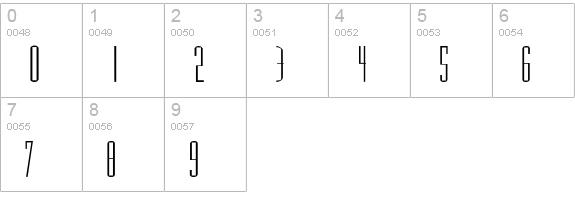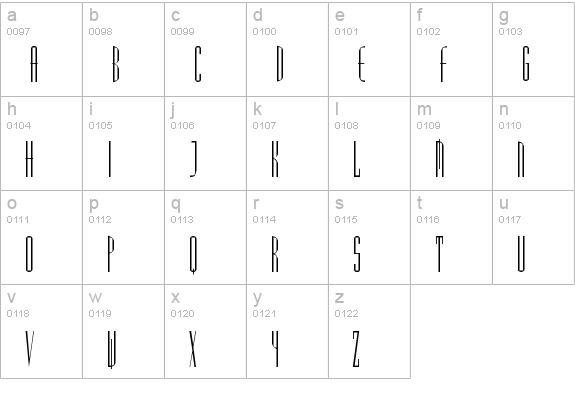
Madrid Font Details
Introducing Madrid font, a stunning typeface that effortlessly captures the vibrant spirit and timeless elegance of the Spanish capital. This font is a perfect blend of tradition and modernity, making it an ideal choice for a wide range of design projects. Madrid font features clean and balanced letterforms, with a harmonious mix of sharp angles and graceful curves. Its versatility shines through in both display and body text, offering a plethora of creative possibilities. Whether used in a headline, logo, or editorial piece, Madrid font adds a touch of sophistication and personality to any design. But what sets Madrid font apart is not just its exquisite design, but also its availability. Unlike many other premium fonts, Madrid font is free! That's right, you can freely download this extraordinary font at FontsMarket.com. This accessibility makes it a valuable asset for designers and creatives who seek high-quality typefaces without breaking the bank. The beauty of Madrid font lies not only in its aesthetic appeal but also in its functionality. With multiple weights and styles, including regular, bold, italic, and more, this font offers endless possibilities for customization and experimentation. Whether you're aiming for a classic, elegant look or a modern, edgy vibe, Madrid font has got you covered. Furthermore, Madrid font boasts excellent legibility, ensuring that your message is conveyed with clarity and precision. Its meticulous attention to detail ensures that every character is perfectly balanced, resulting in a seamless reading experience across various mediums. So, if you're in search of a versatile and visually captivating font that won't cost you a penny, look no further than Madrid font. Download it freely at FontsMarket.com and unlock a world of design possibilities. Let Madrid font elevate your projects and leave a lasting impression on your audience.